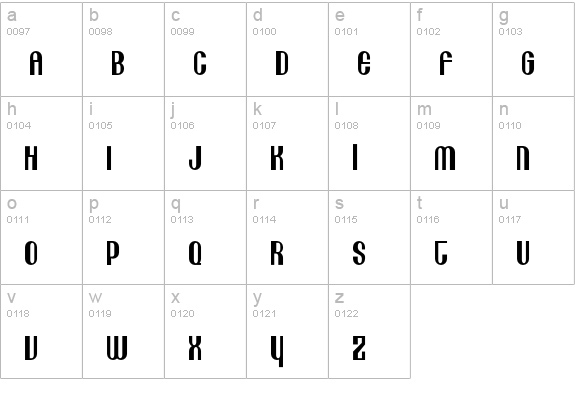
Lithia-OffKilterSmallCaps Font Details
Lithia-OffKilterSmallCaps is a unique and artistic font that adds a touch of whimsy and creativity to any design project. Its off-kilter small caps style exudes a playful and unconventional vibe that is perfect for making a statement. This font strikes the perfect balance between modernity and quirkiness, making it a versatile choice for a wide range of creative projects. The free-spirited and dynamic nature of Lithia-OffKilterSmallCaps font makes it ideal for eye-catching headlines, branding materials, social media graphics, and more. Its distinctive small caps give a nod to traditional typography while infusing a fresh and contemporary twist. Best of all, Lithia-OffKilterSmallCaps font is freely available to download at FontsMarket.com. Whether you're a designer looking to experiment with new fonts or someone seeking to add a touch of originality to your projects, this font is sure to inspire and captivate. Download Lithia-OffKilterSmallCaps today and let your creativity run wild!